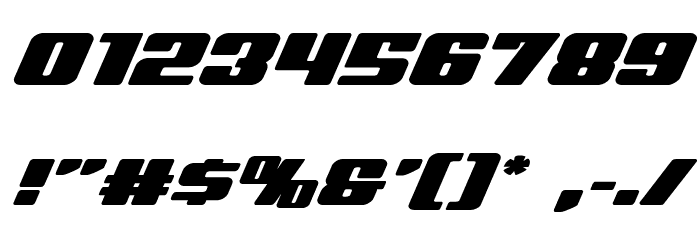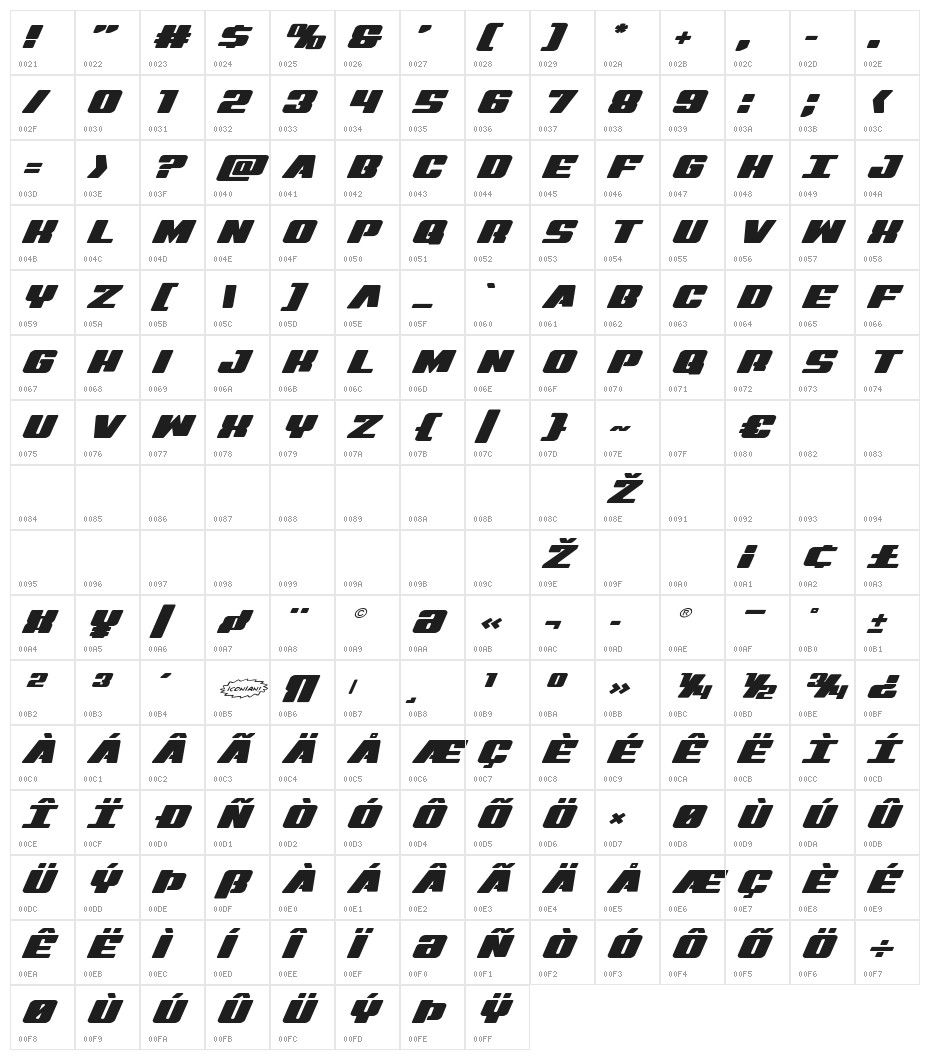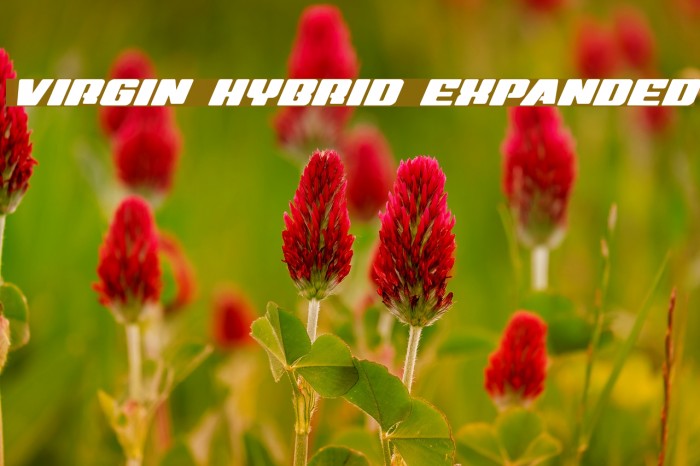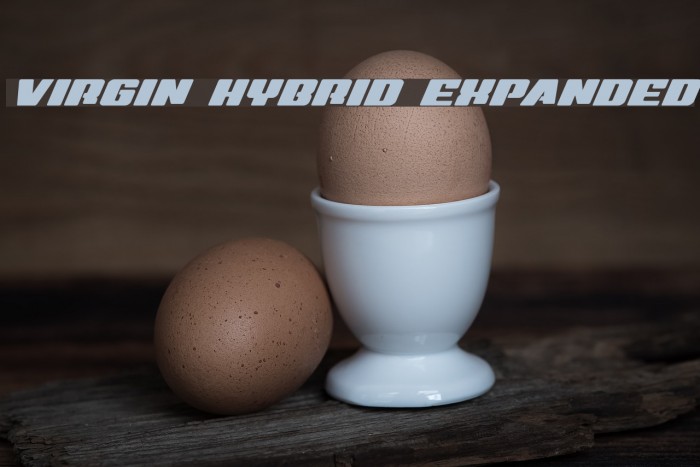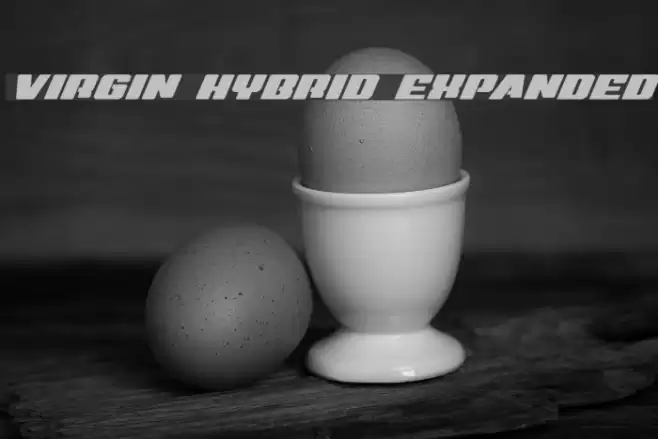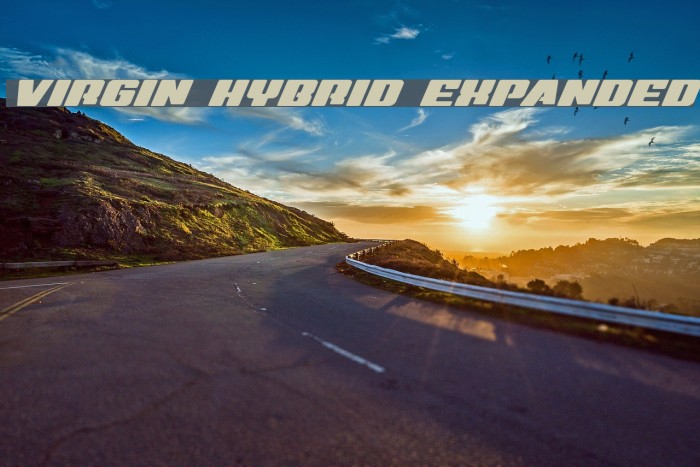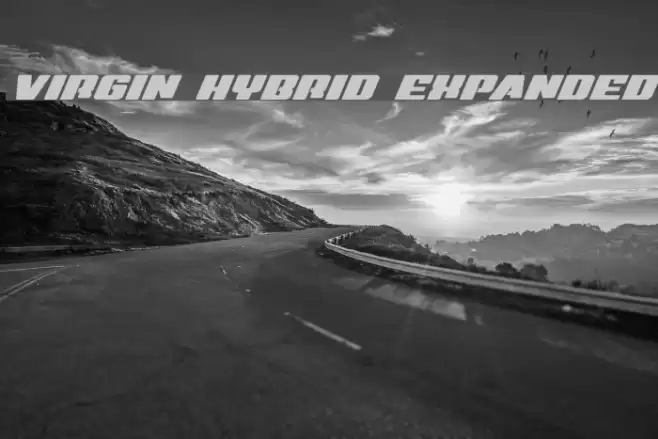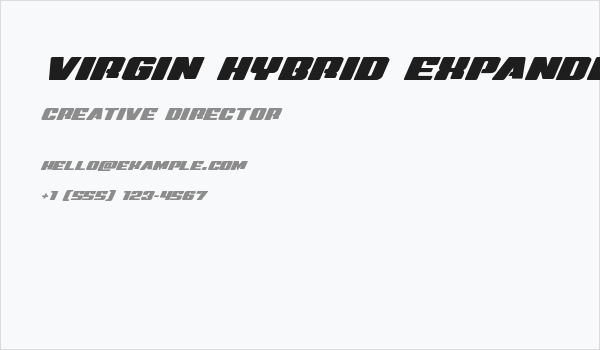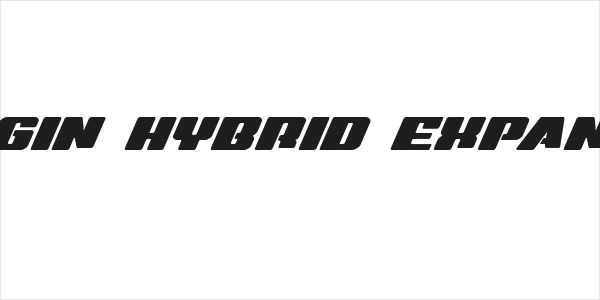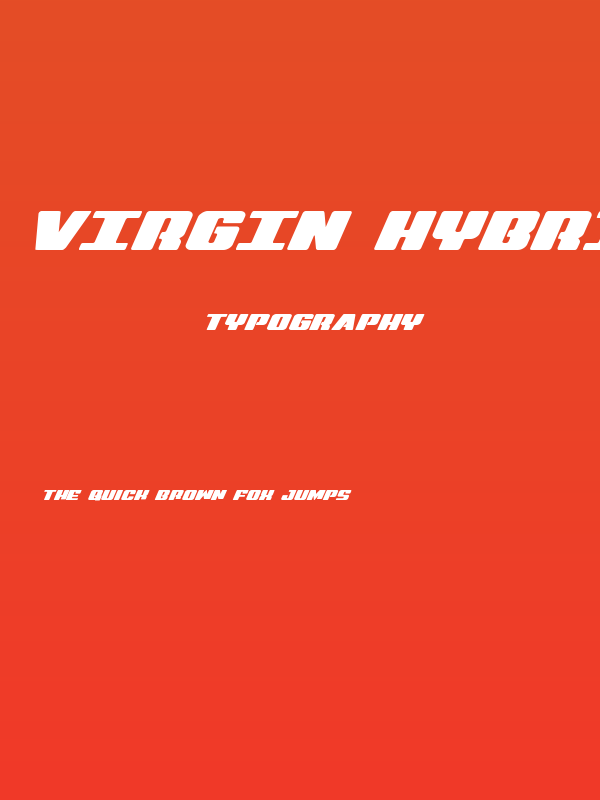
Virgin Hybrid Expanded Font
Virgin Hybrid Expanded Description
This font features a bold and dynamic style with a strong presence. The characters are designed with a forward-leaning slant, giving them a sense of motion and energy. The strokes are thick and consistent, providing a robust and impactful appearance. The edges are sharp and angular, contributing to a modern and aggressive look. This font is highly legible and stands out due to its expanded width, making it ideal for attention-grabbing headlines and titles. The spacing between characters is tight, enhancing the compact and cohesive feel of the text.